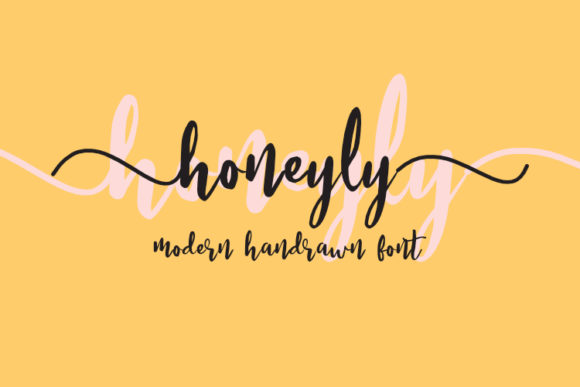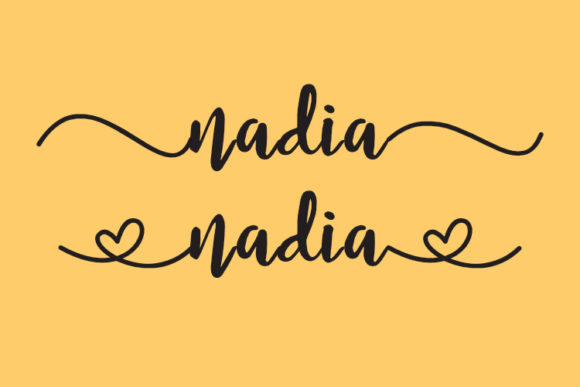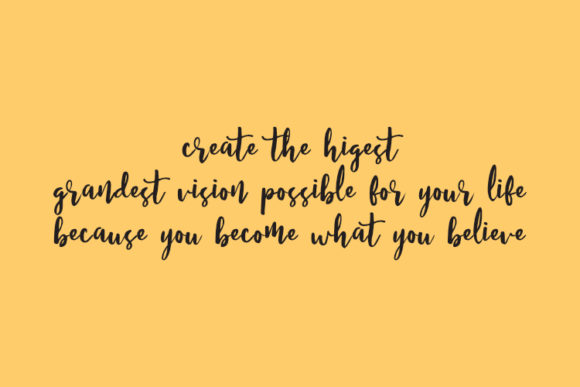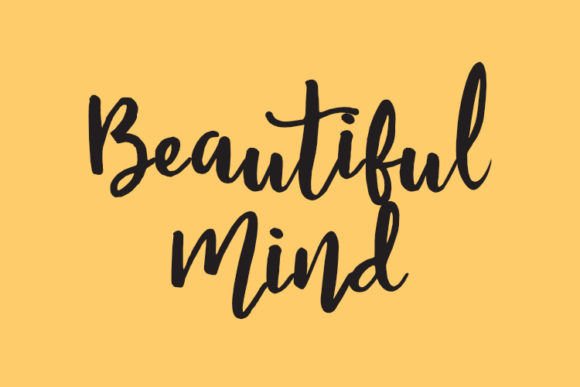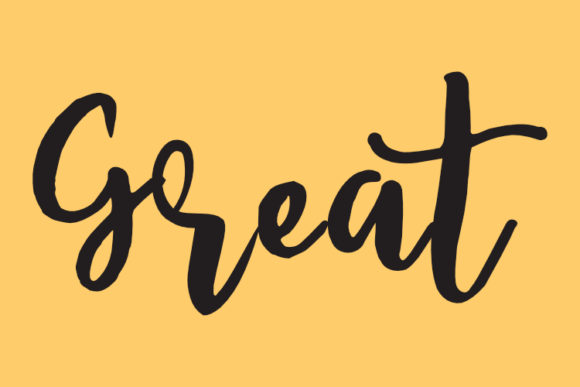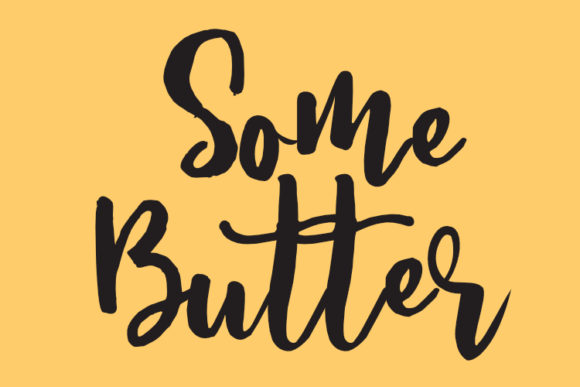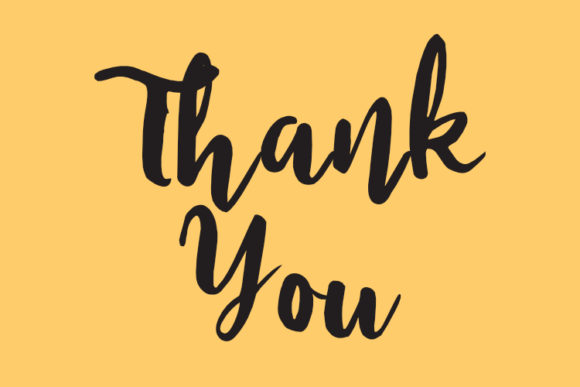
Honeyly Font
About Honeyly Font
Honeyly is an equally cute and elegant script that’s great for any type of crafting project. It will add a touch of elegance in an instant.